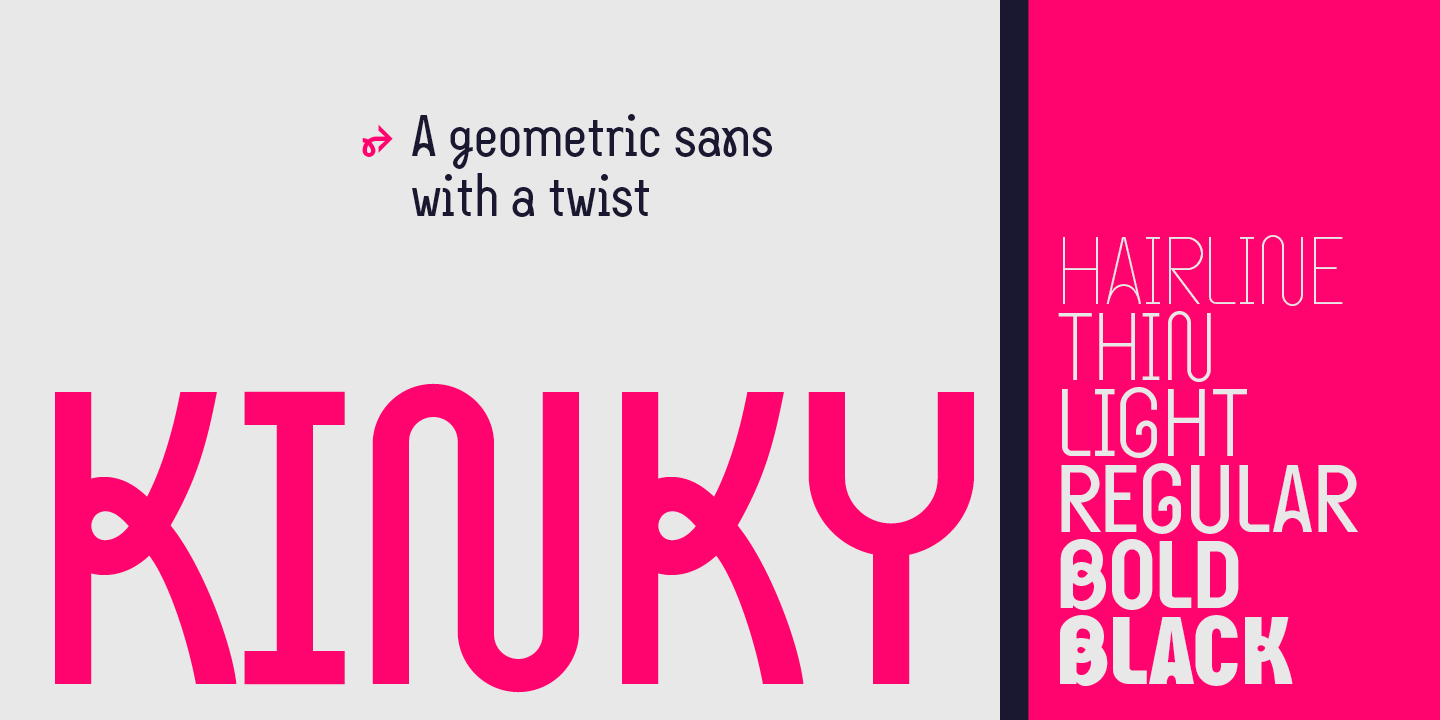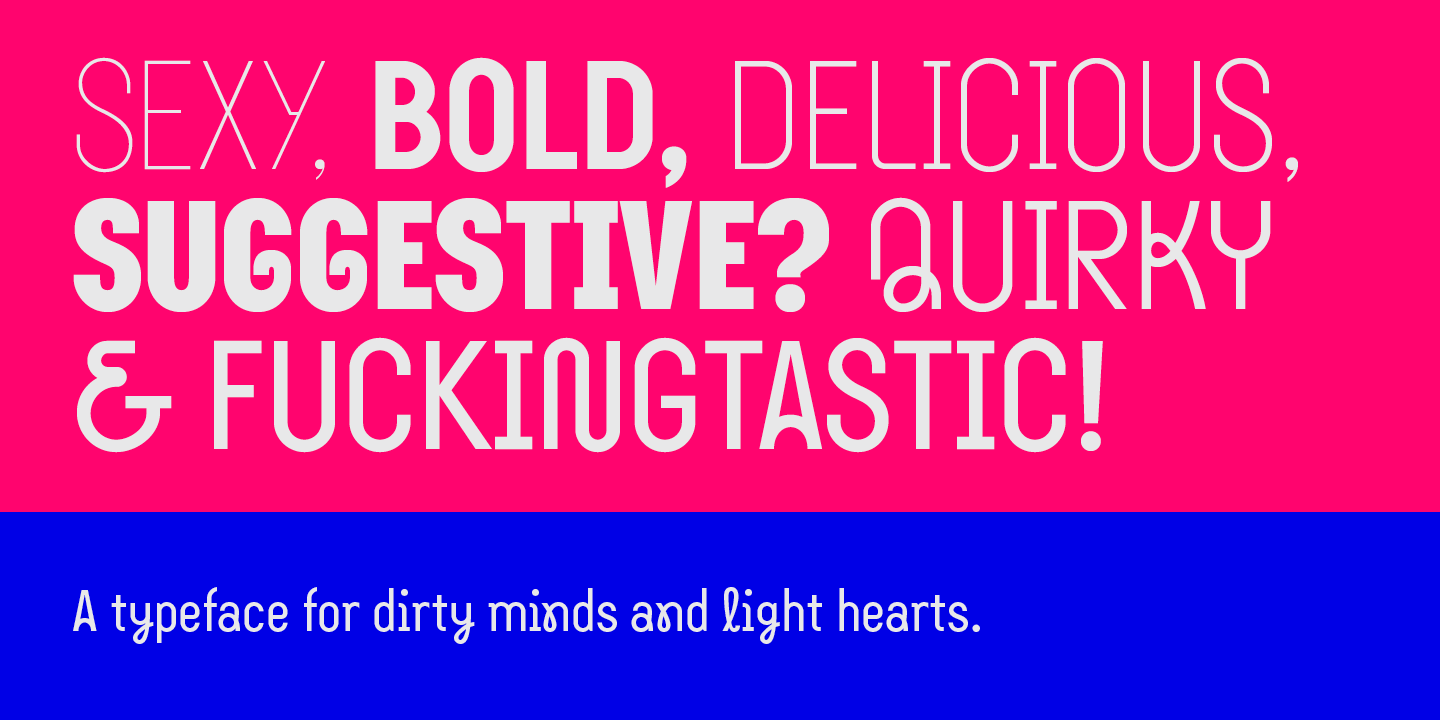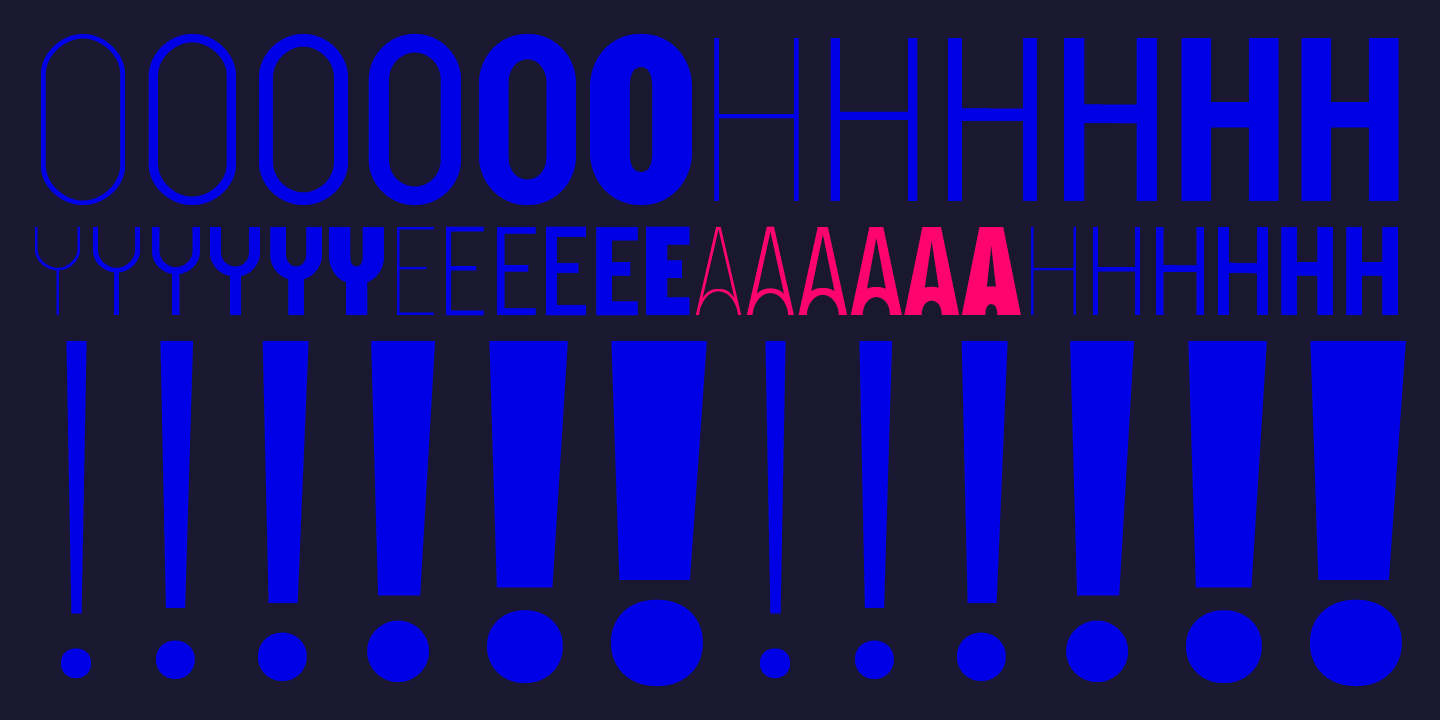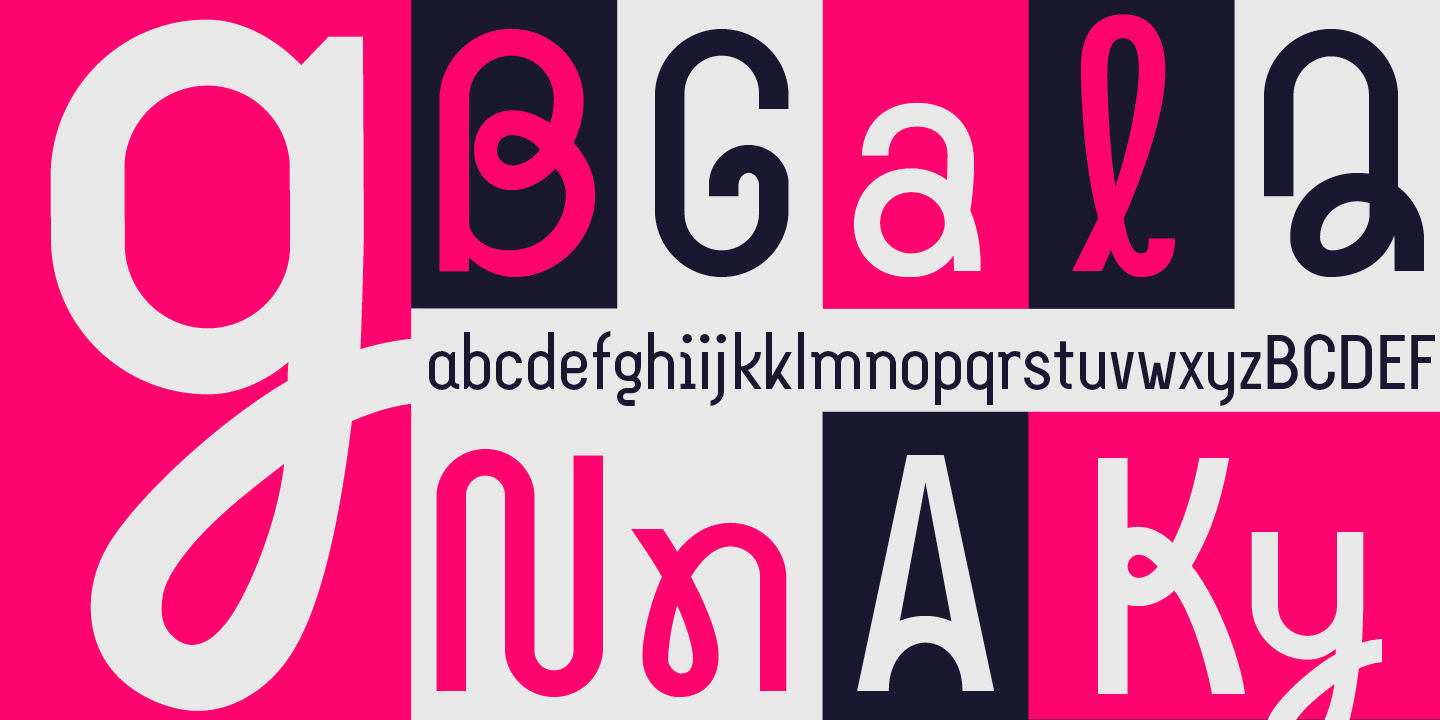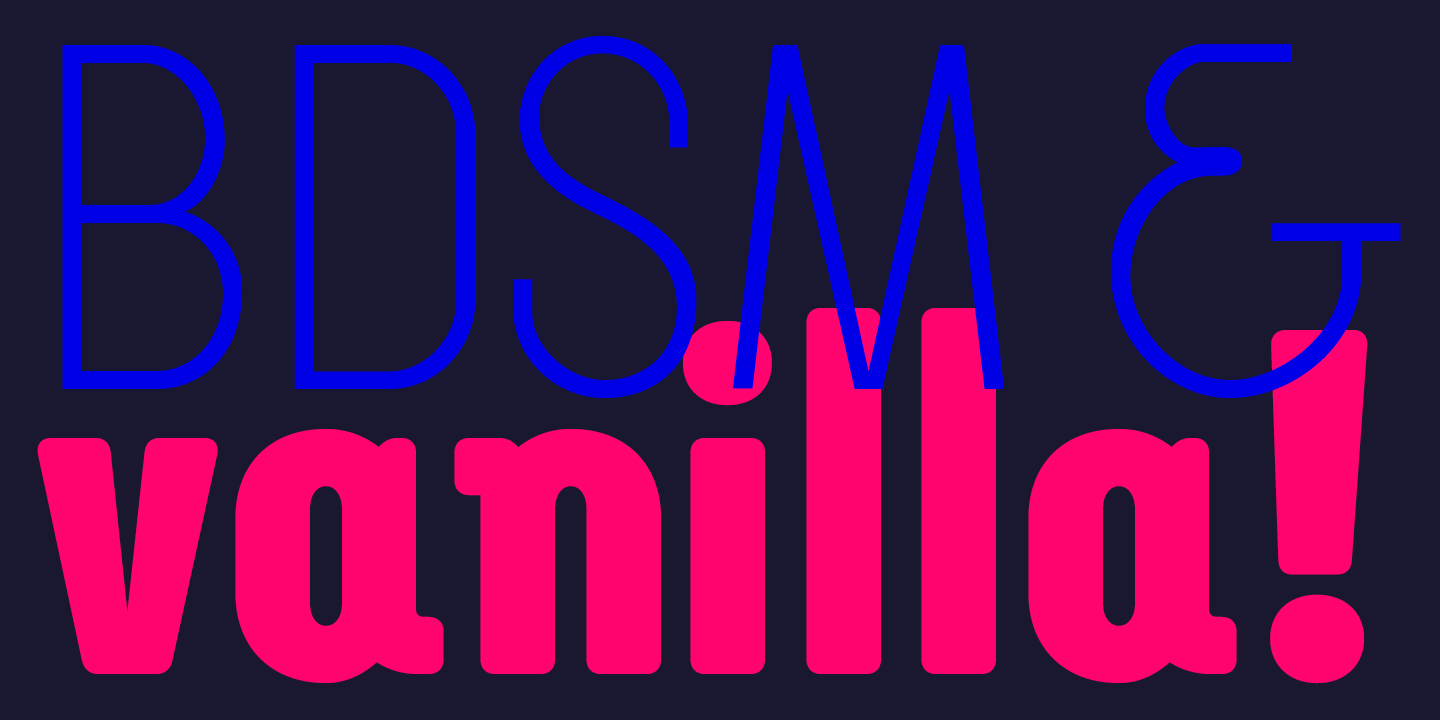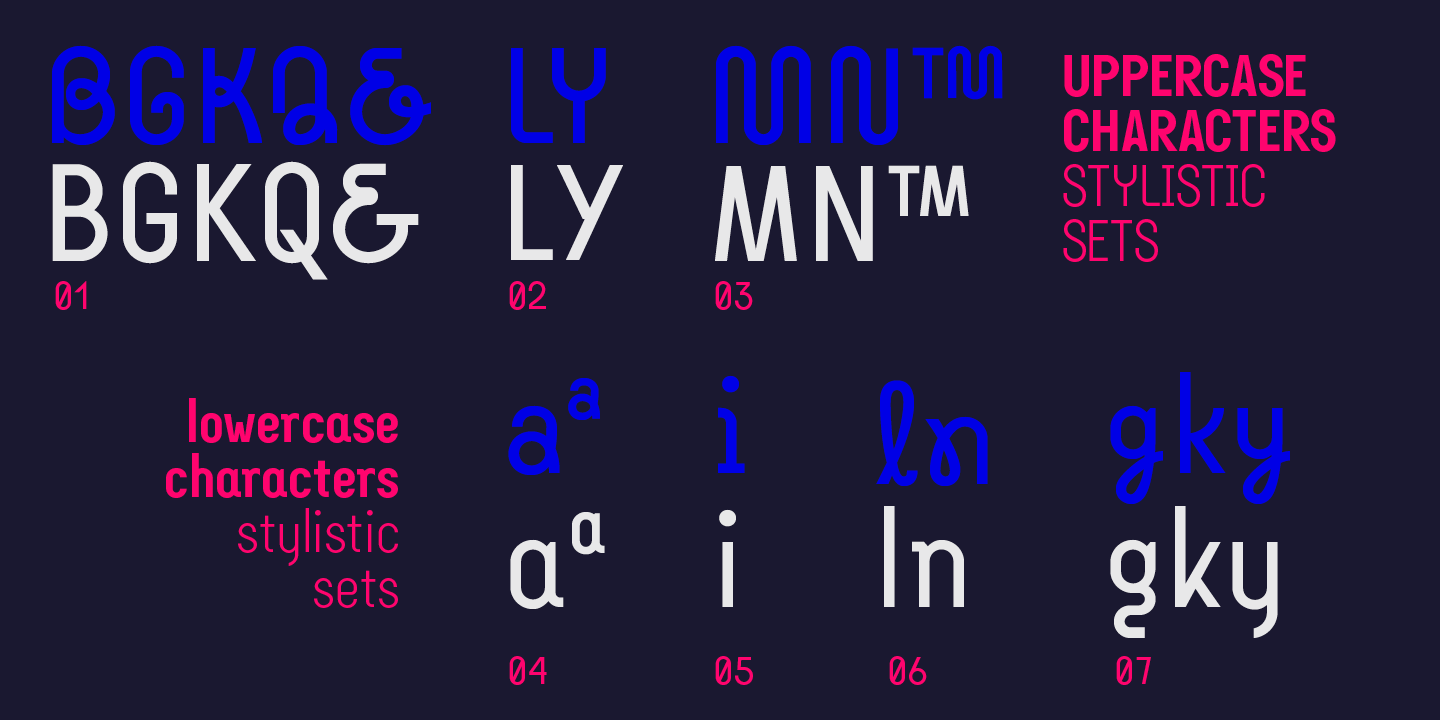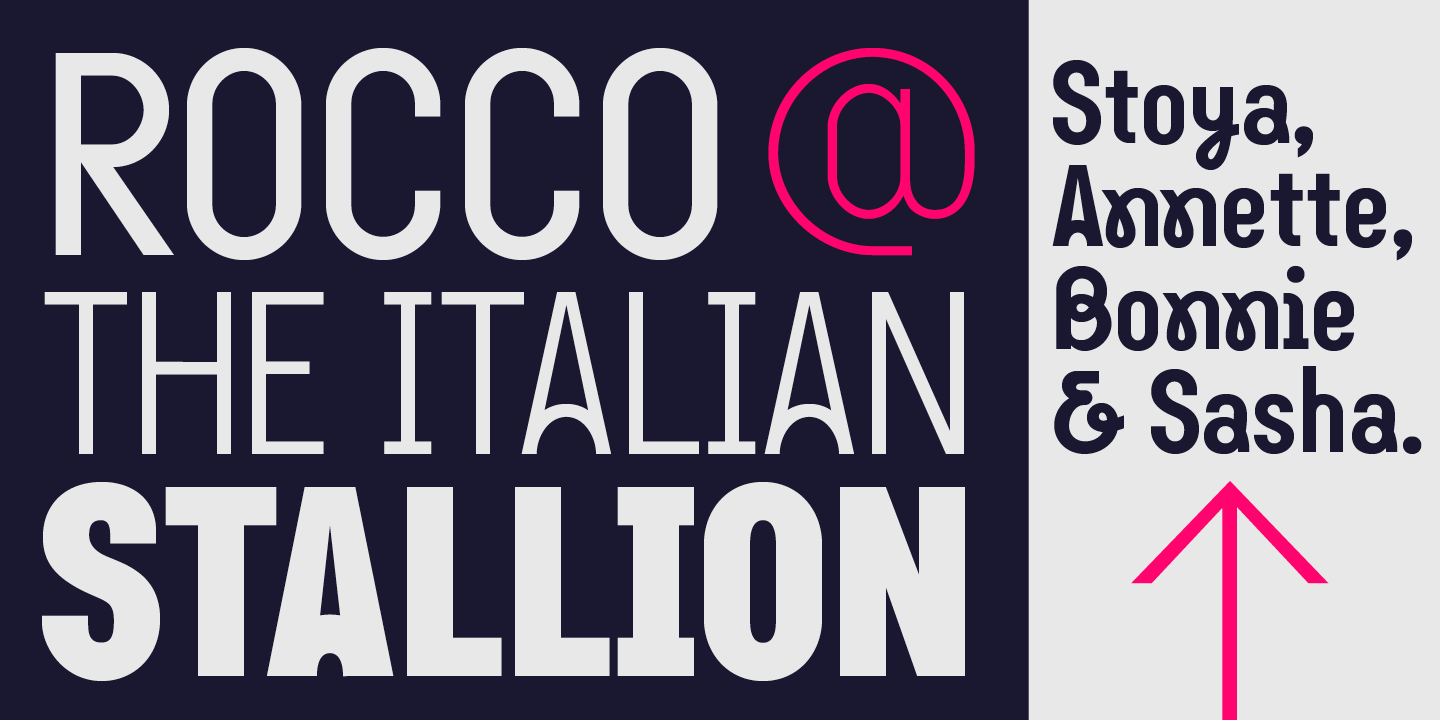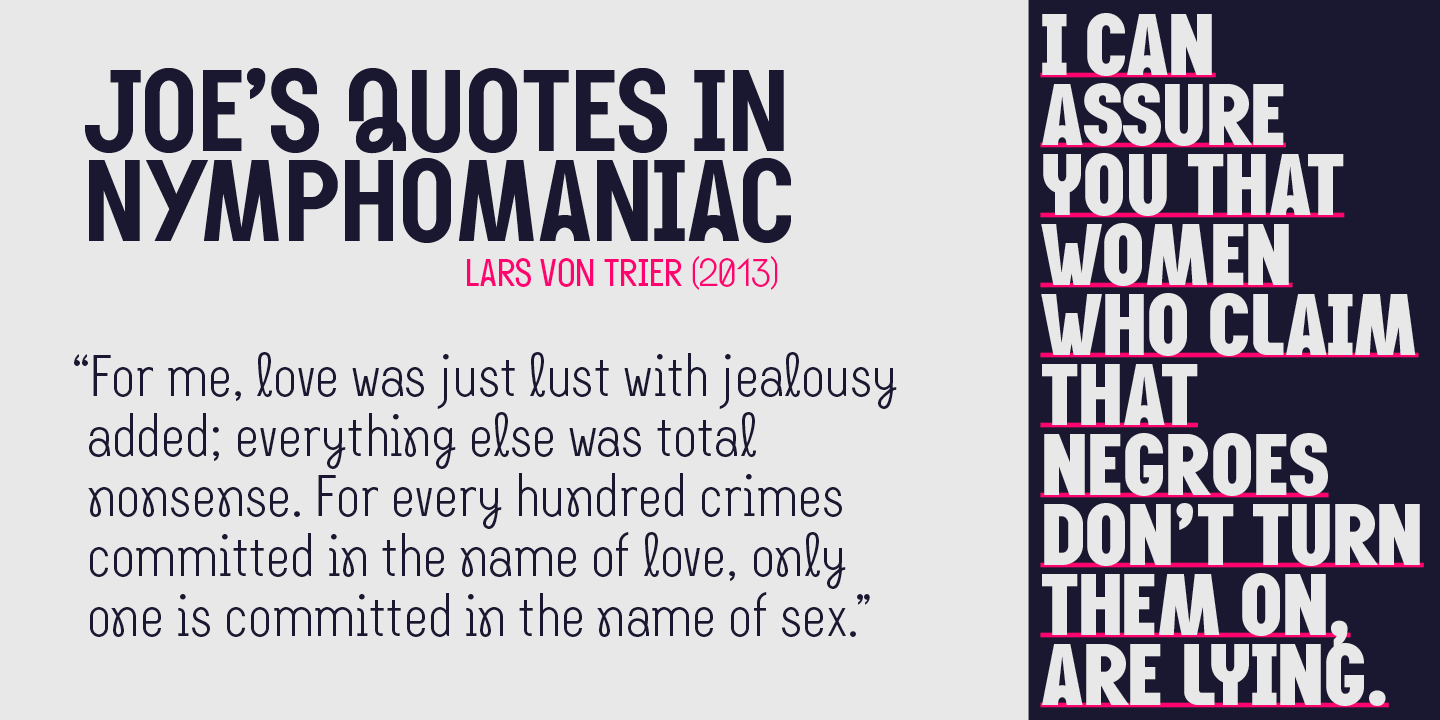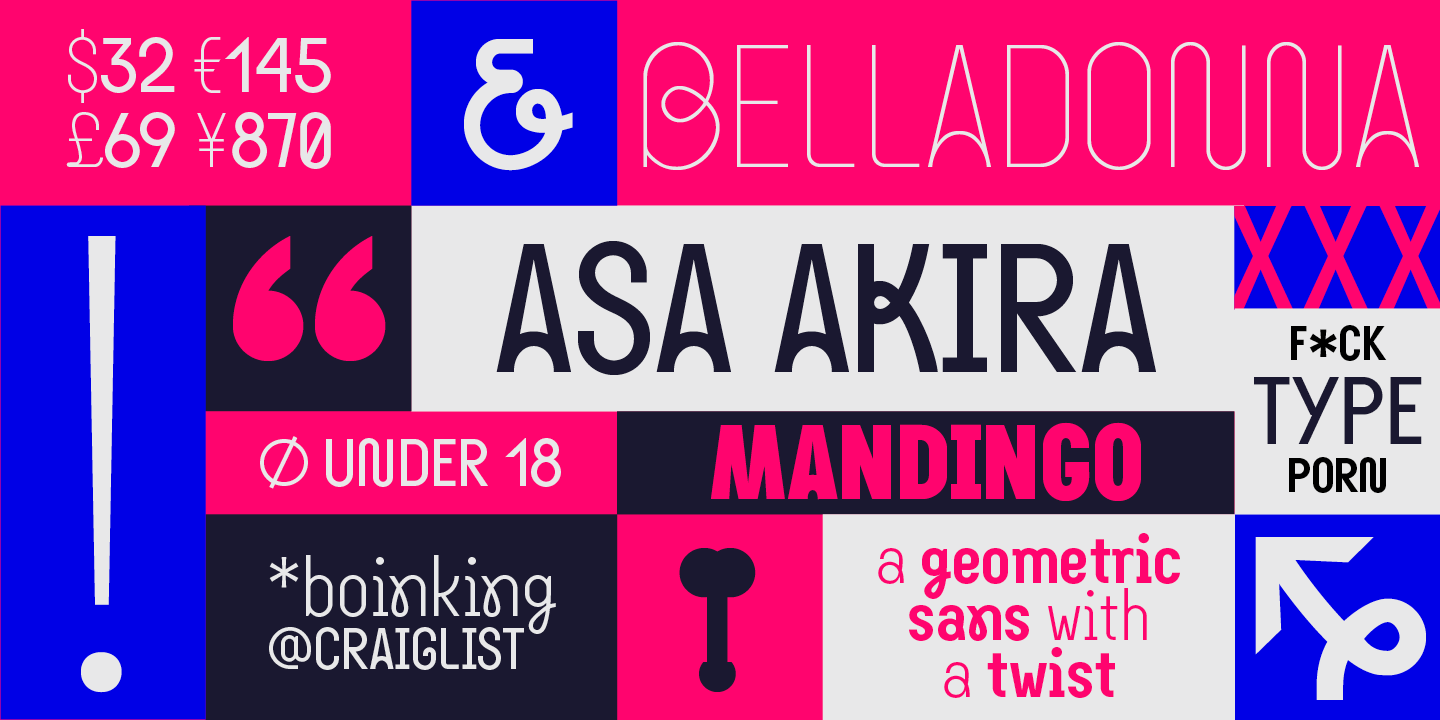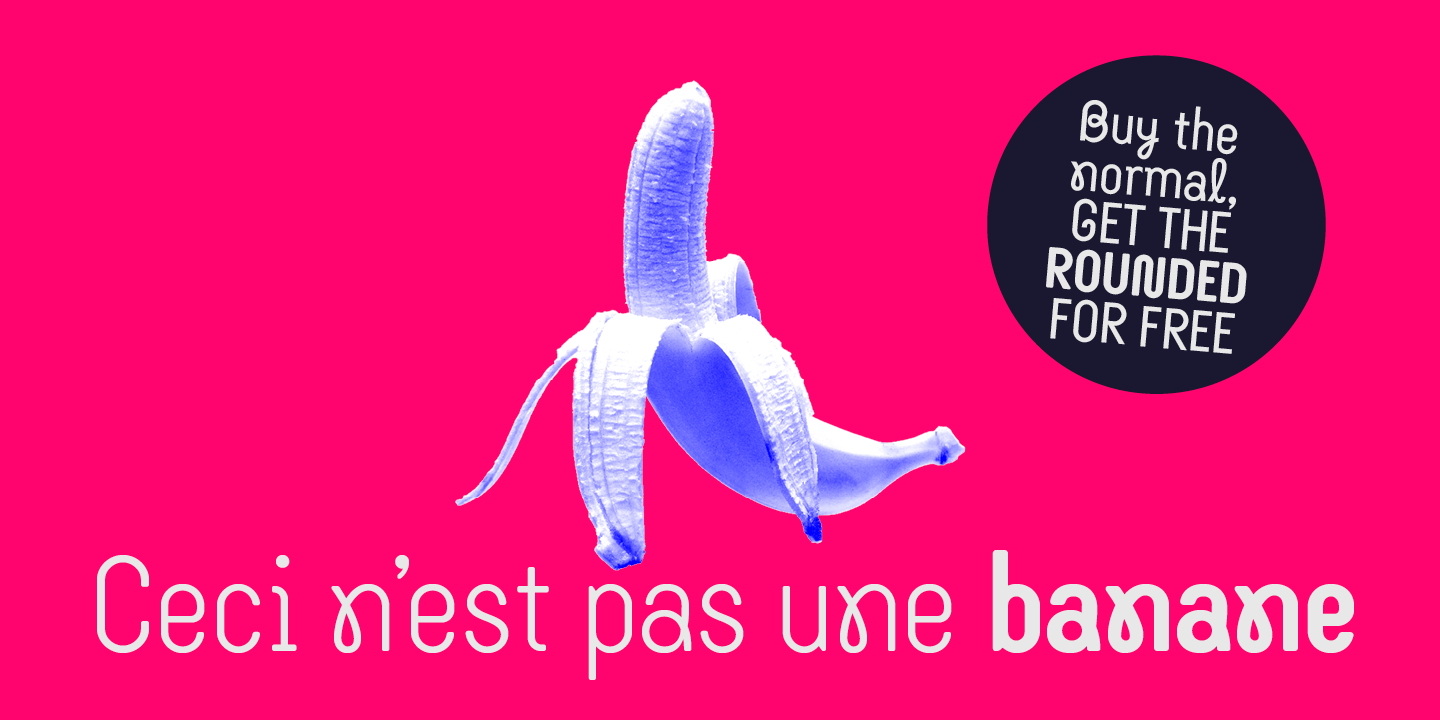
Kinky is a display geometric sans with condensed proportions. Selected characters have loops and twists, giving the typeface a quirky and sexy personality ideal for editorial, branding and advertising purposes. It can work well also in short texts at medium size. For those uses that require a vanilla approach, Kinky contains alternate characters organised in 7 stylistic sets. Case sensitive alternates, beautiful curvy arrows and nonsense daggers complement the font features. The development of the typeface started in 2015, inspired by neon signs, the aesthetic of sex clubs, and typefaces such as Suburban (Emigre), Lyon (Radim Pesko) and Euclid Flex (Swiss Typefaces). It comes in 6 weights (from the sweet sexy Hairline to the powerful Black), in 2 versions (normal and rounded /u2014 buy one, get the other for free). It supports all Latin European languages.